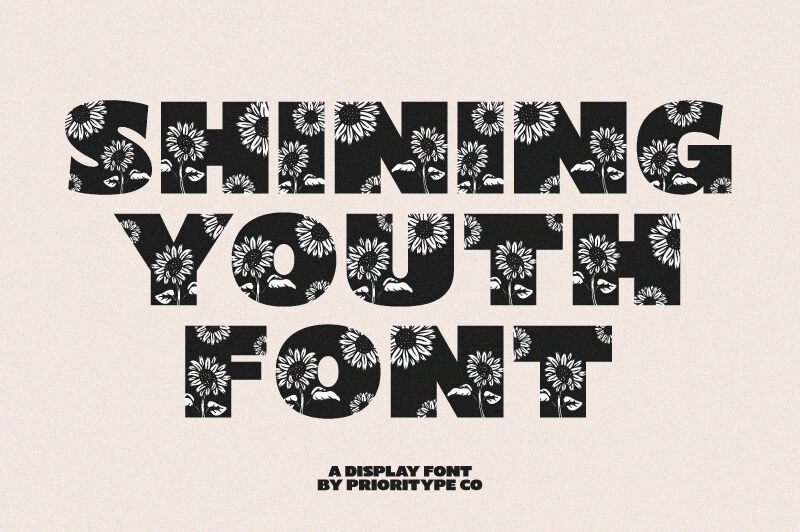
Shining Youth, a decorative display font designed by Prioritype Co, is the perfect addition to any project that needs a touch of whimsy and charm. Its extra-bold weight and expanded width make it ideal for headlines and titles that need to stand out. The flower texture adds an organic feel to the font's playful aesthetic. Use Shining Youth on invitations, greeting cards, or even packaging for artisanal products. This font is versatile enough to be used in both digital and print media, making it a must-have for any creative project that needs a touch of youthful energy.